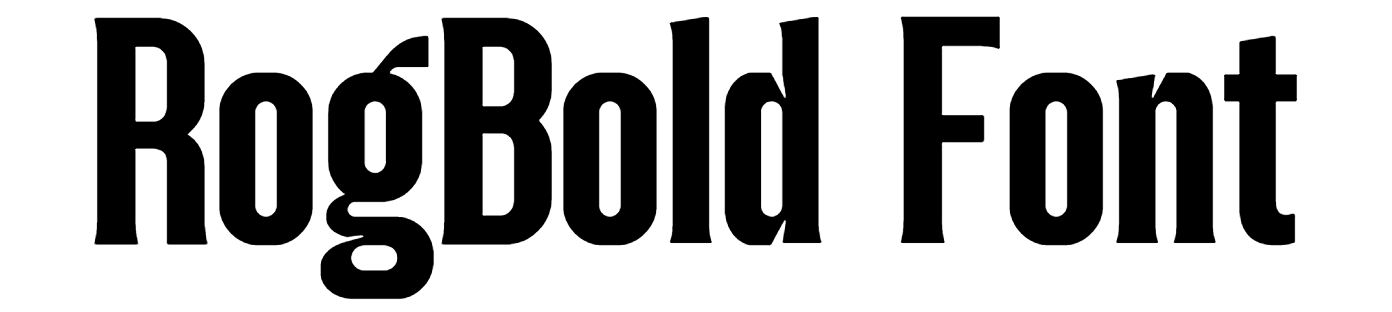
RogBold
RogBold is a sans serif font made by Muhamad Yusron Billah (2024). It has a clean, no-nonsense look that fits modern brands and websites. You can download it for free and test it with your own words in the preview above.
- Designer: Muhamad Yusron Billah
With complete upper and lowercase letters and all ten digits, RogBold is ready for real wording, not just a single headline. Everyday marks like &, !, ? and @ are there too. Thanks to its accented letters, it also works for Spanish, French, German, Portuguese and Italian, not just English.
Think of RogBold for websites, app screens and clean logos. Its lowercase letters are tall compared to the capitals, which keeps it readable at smaller sizes. It works for headings and body text alike. If the download has several weights, use a heavier one for titles and a lighter one for paragraphs.
Yes. RogBold includes the accented letters needed for Spanish, French, German, Portuguese and Italian, so it works for more than just English.